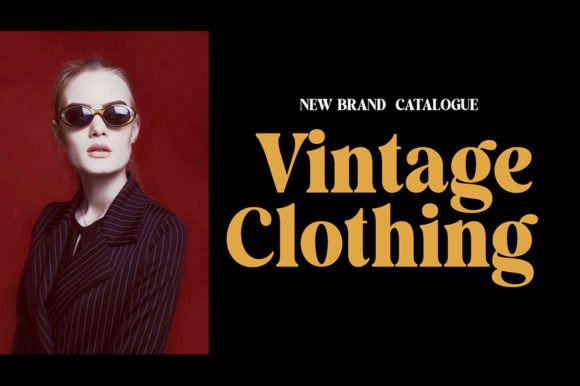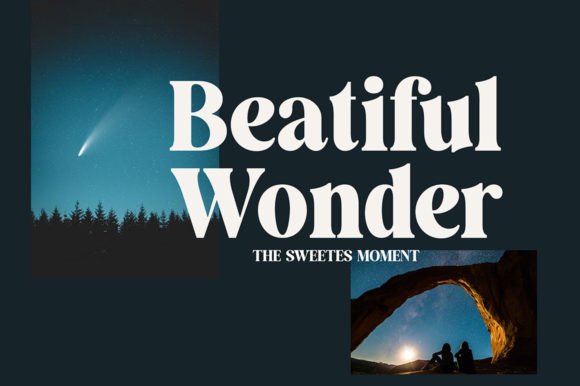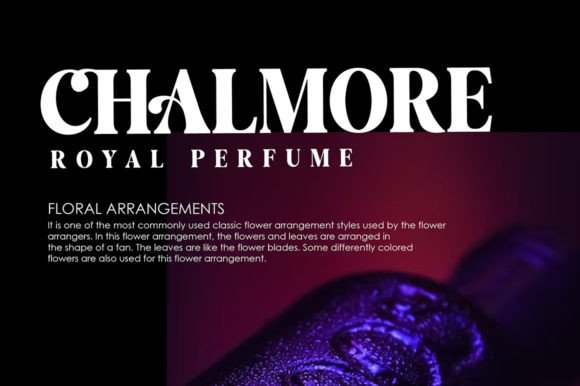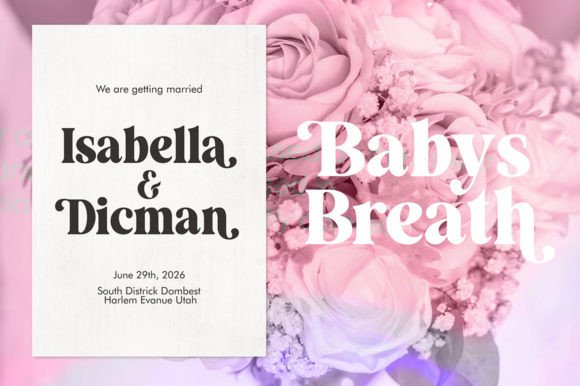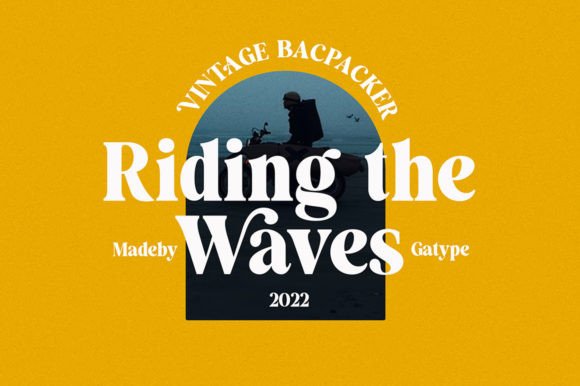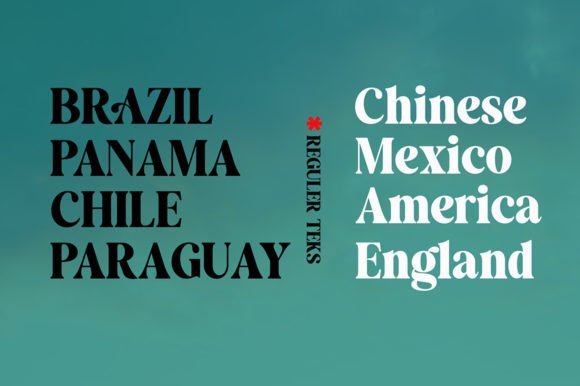
Introduction to Remaid Font
Remaid is an elegant serif typeface with subtle details.
This neat font can add modern and fashionable brand appeal This versatile serif typeface has enough character for logos and branding, as well as headlines, apparel, bridal and more.
Key Features of Remaid Font
Why Choose Remaid Font?